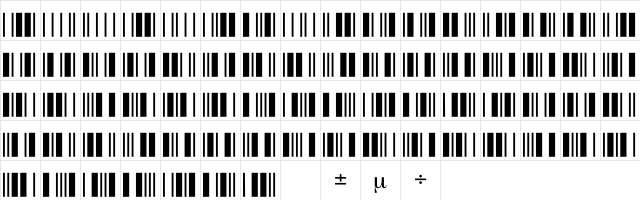
C39P12DlTt Normal Font Preview
C39P12DlTt Normal
Design Context for C39P12DlTt Typeface
C39P12DlTt is a composed and adaptable typeface that performs quietly and consistently across a wide range of design contexts.